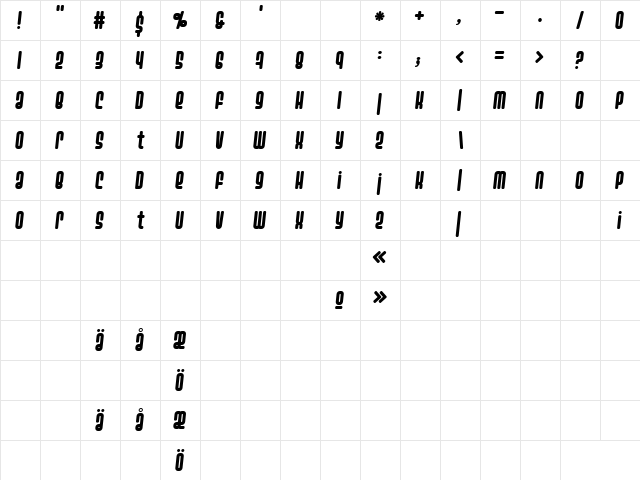
Ashbury Italic
Design Context for Ashbury Typeface
Ashbury takes a measured approach to typography — its balanced proportions and neutral character make it a reliable workhorse for both digital and print work. The dynamic lean of this cut emphasises speed and emphasis in any layout.
Pro Tip: Use Ashbury for emphasis, pull quotes, and subheadings where its slanted energy can add rhythm to the layout.